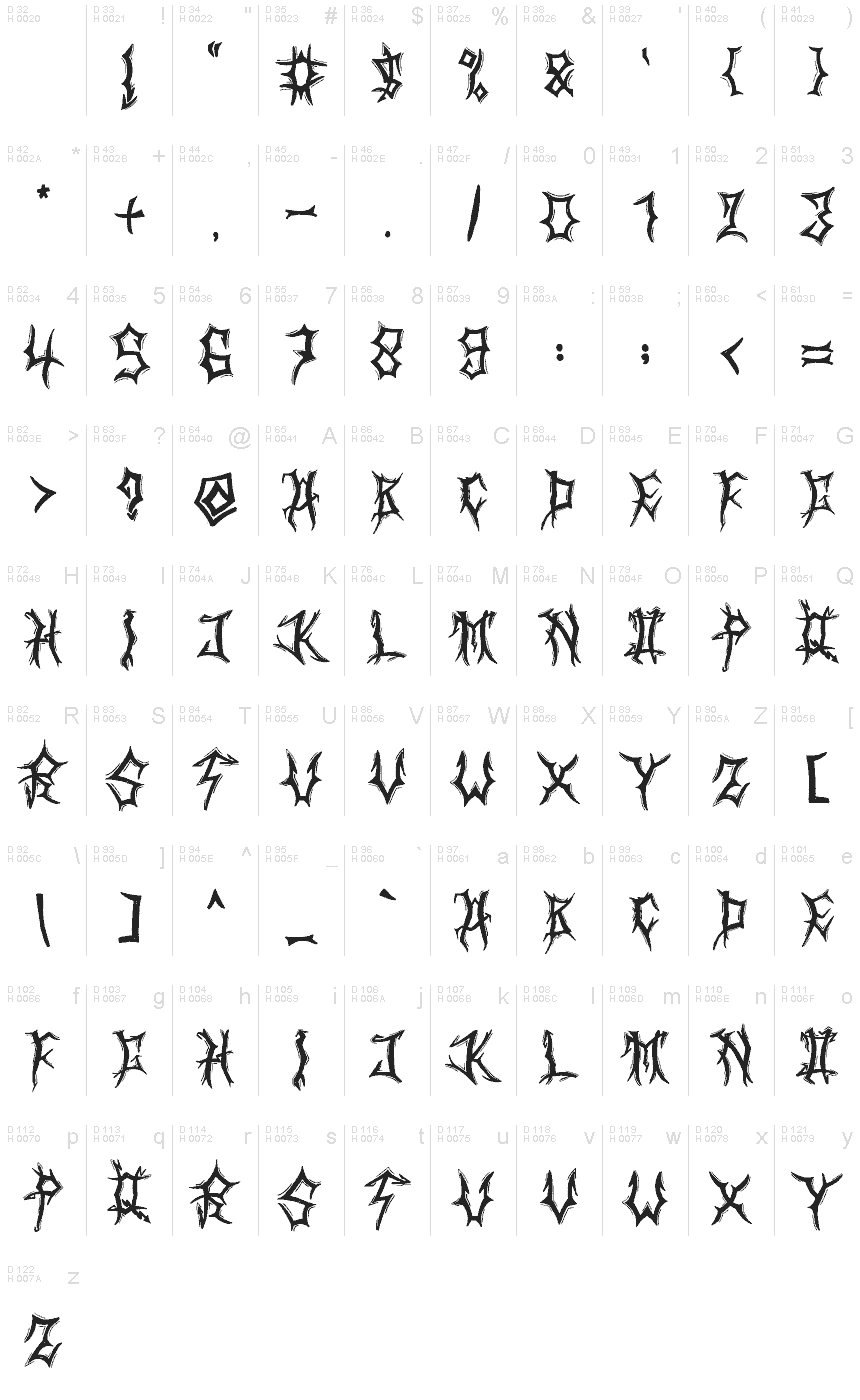
Black Dreams font is a modern Gothic-inspired typeface designed by Letterara. This free upper and lowercase letters typeface has an edgy overall look, elevated by its jagged strokes and intense texture. Detailed decoration can be noticed at the end of each letter with slight differences distinguishing them from one another for a more natural flow.
Create headings using Black Dreams on posters or positioning it as a logo on magazines. It would make loads of difference when used as Instagram posts, Facebook posts, TikTok videos, movies intro and outro slides etc.